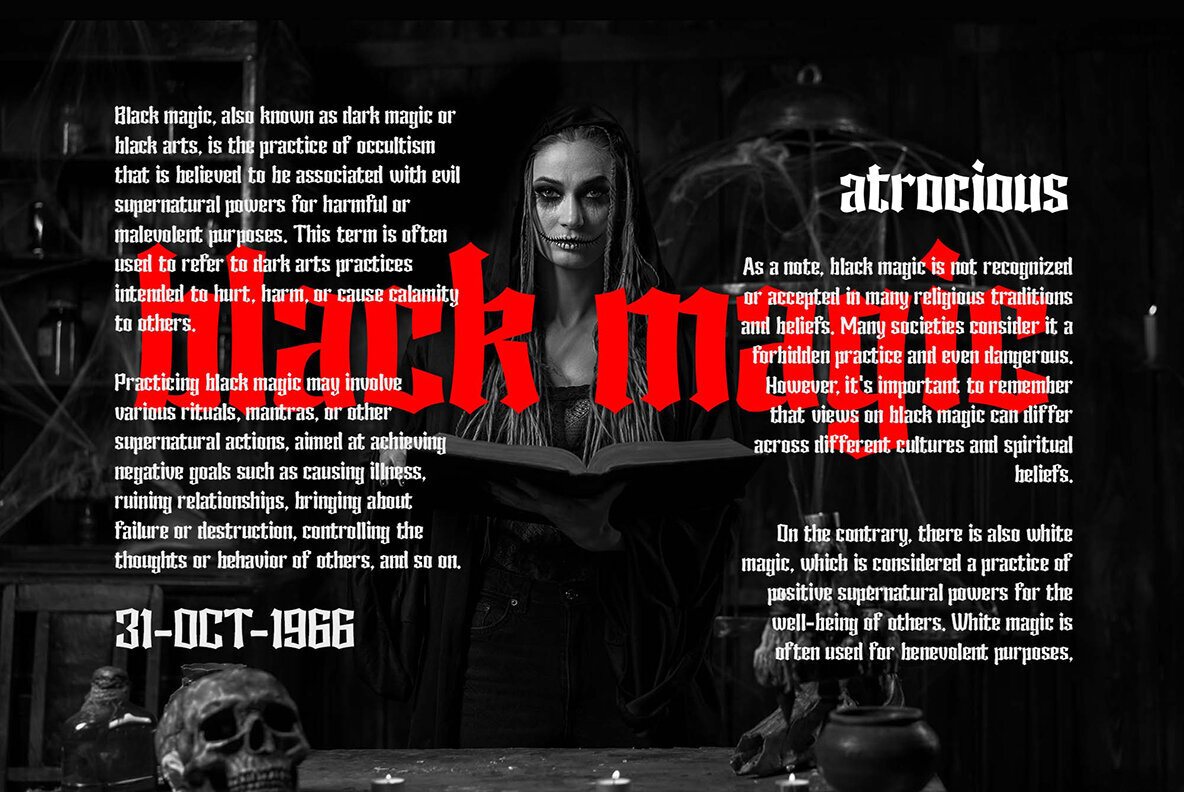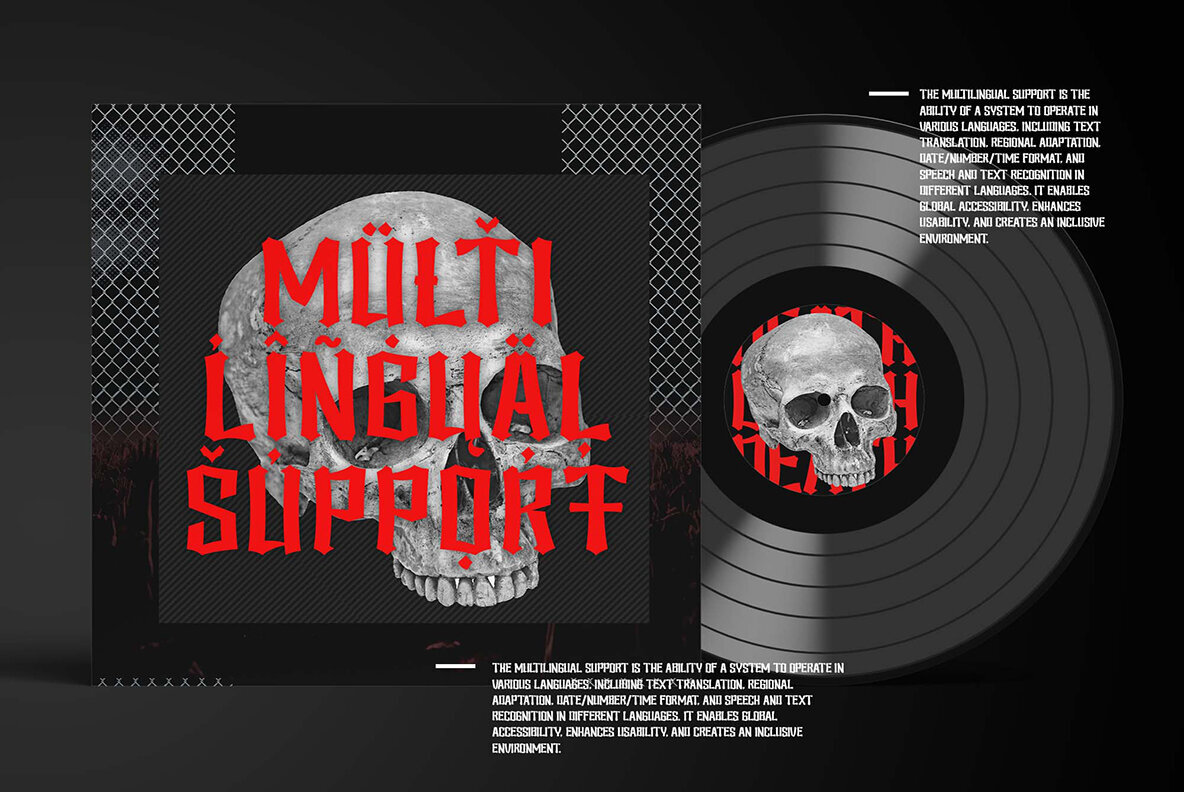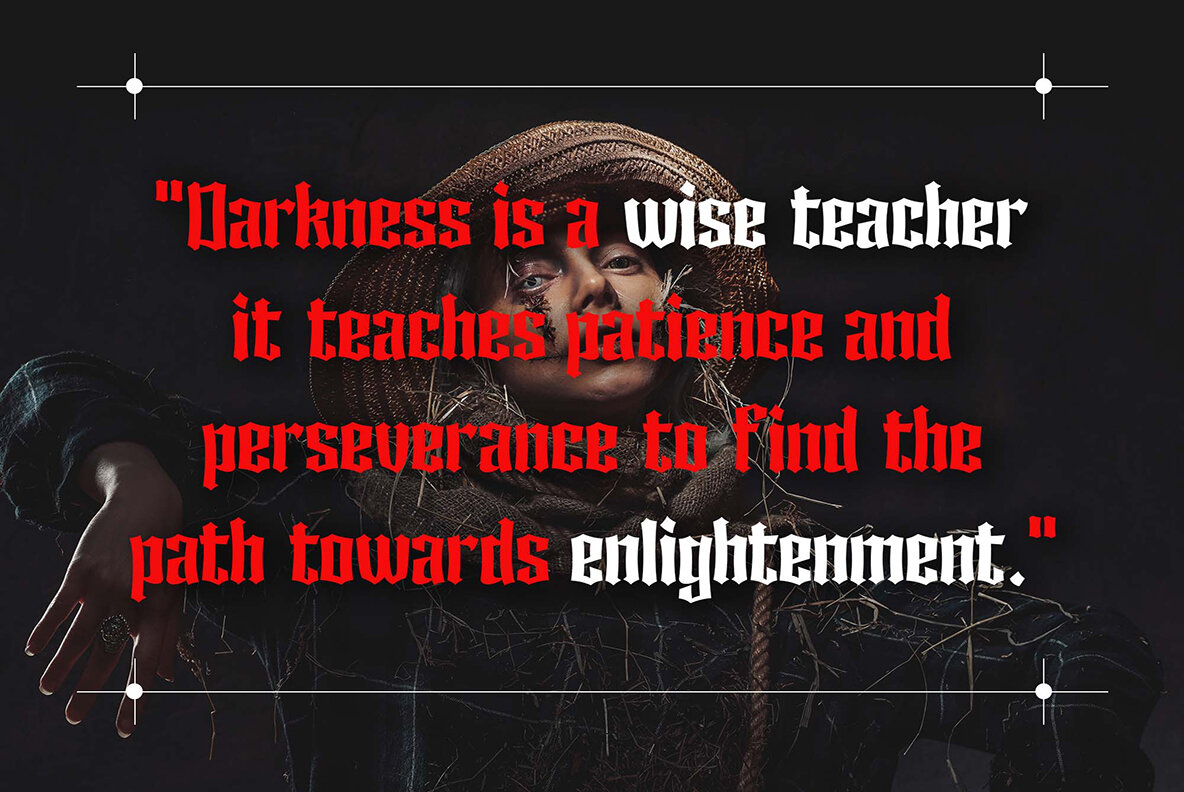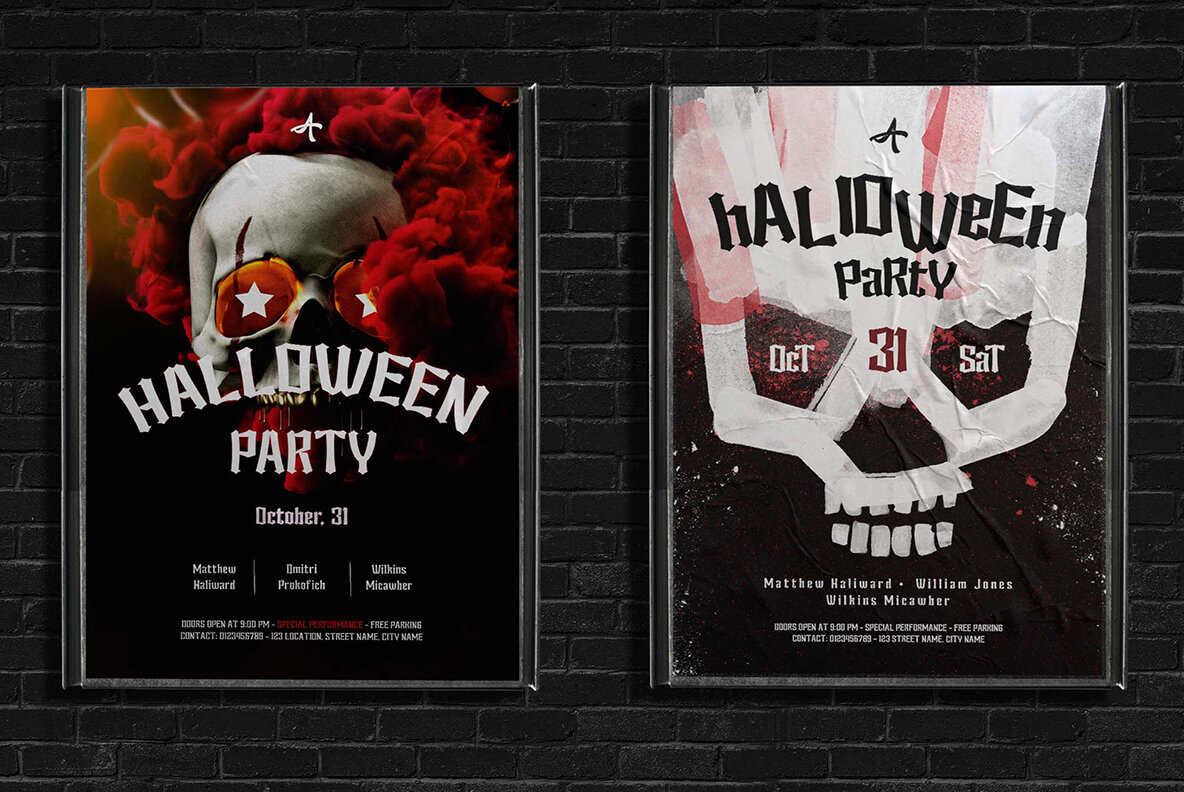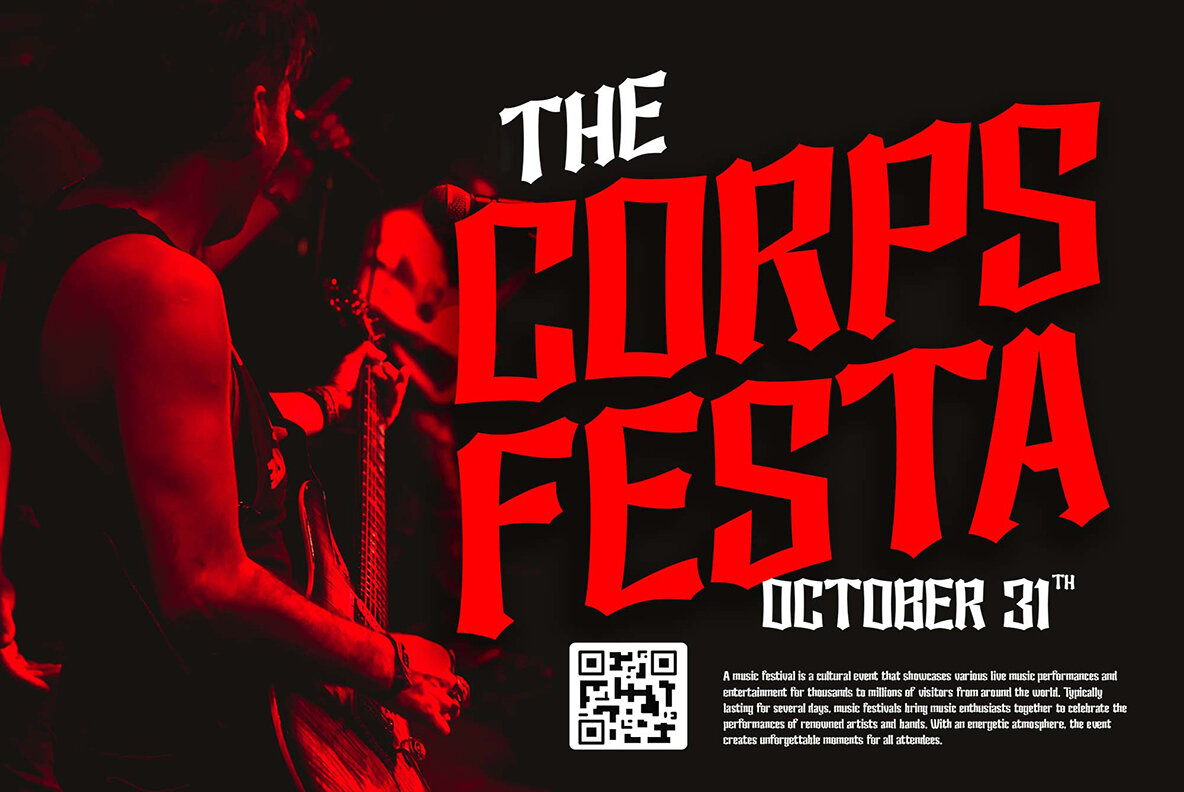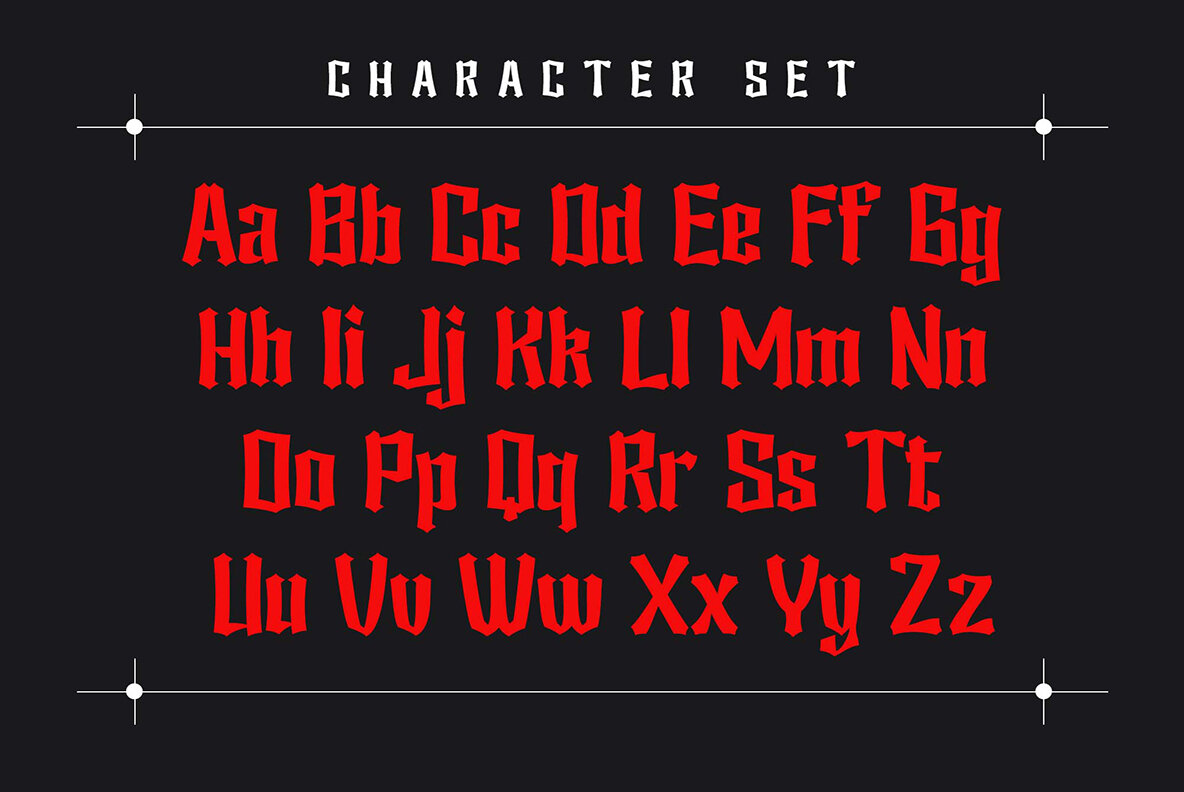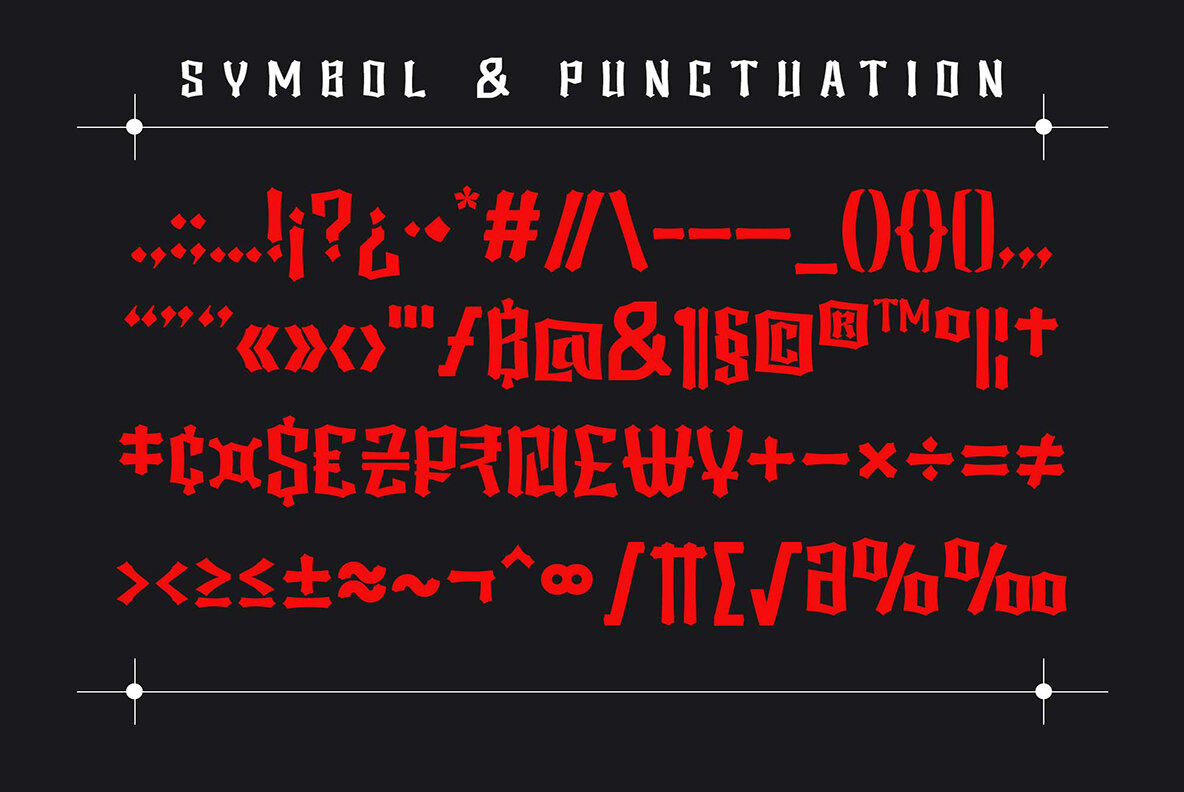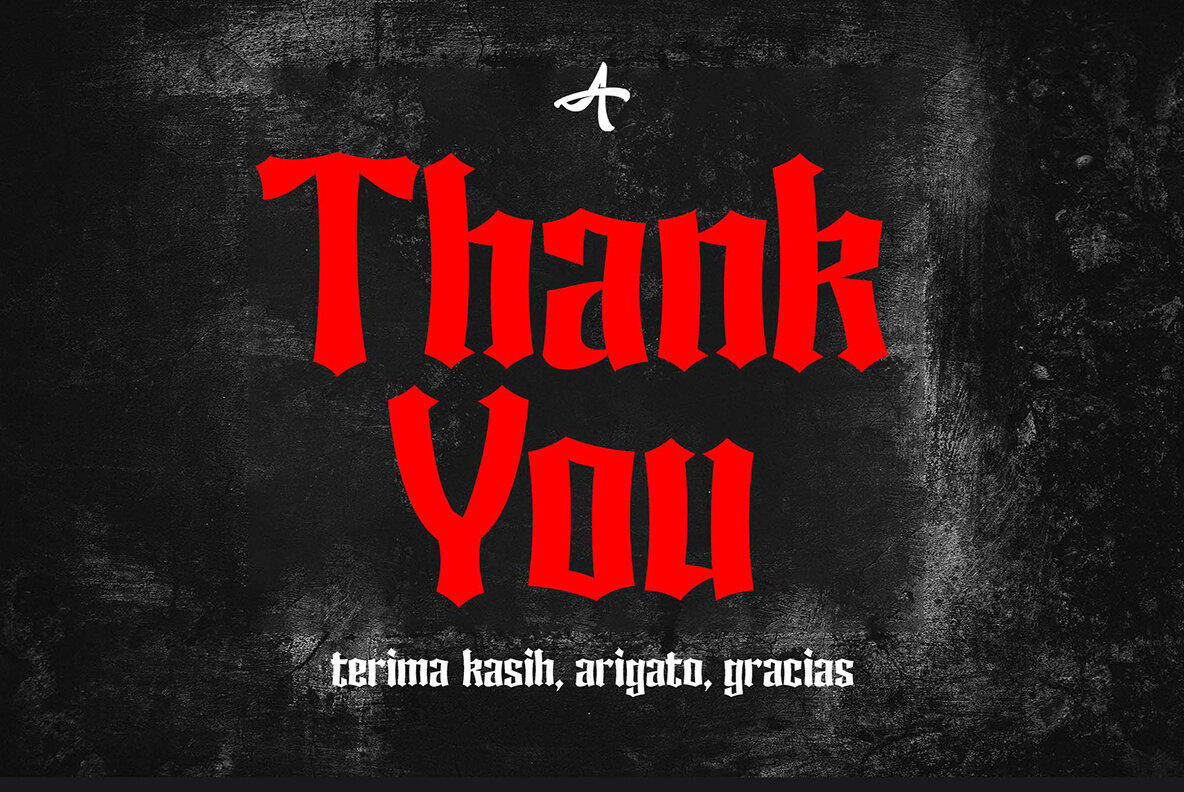
Actrocious Font
actrocious Regular
Atrocious - Display Typeface is not only creating an eerie and unique atmosphere with its distinctive Gothic touch, but also presenting an unparalleled artistic charm. Its stunning design can evoke a remarkably strong aura of mystery, making it an outstanding choice for creating impressive visuals. With the provided OpenType features and the ability to support multiple languages, this font offers limitless flexibility in self-expression. It's suitable for book titles aiming to captivate readers, adding a special touch to the world of cinema, or infusing a unique element into graphic designs. It's not only suitable for horror themes but also for all kinds of designs aiming to portray a spine-chilling ambiance, while retaining an unforgettable impression.